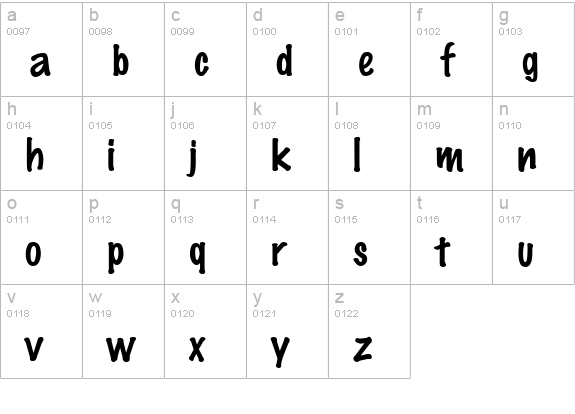
Felt Regular is the standard, neutral variant in the Felt typeface family \xE2\x80\x94 well suited to general body text, paragraphs, and standard typographic work.
Felt Regular font is a charming and versatile typeface that exudes warmth and creativity. Its soft, rounded edges give off a cozy and approachable vibe, making it perfect for a wide range of design projects. This font is ideal for adding a handmade touch to invitations, posters, packaging, and more. The best part? Felt Regular font is completely free to download at FontsMarket.com. With just a few clicks, you can add this delightful font to your collection and start using it in your designs right away. Don't miss out on this fantastic opportunity to enhance your projects with the unique style of Felt Regular font.